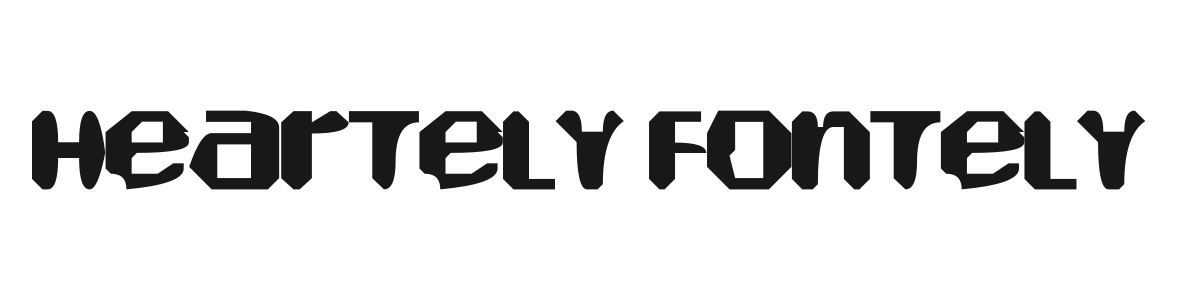
Heartely Fontely
by Malin Johansson
Heartely Fontely is a heavy geometric display face built from angular, block-like forms with sharp diagonal cuts that fracture each character in unexpected ways. The result lands somewhere between a techno grid font and deliberate distortion, with a raw, aggressive energy. It works best at large sizes where the structural irregularities read as intentional design rather than noise.